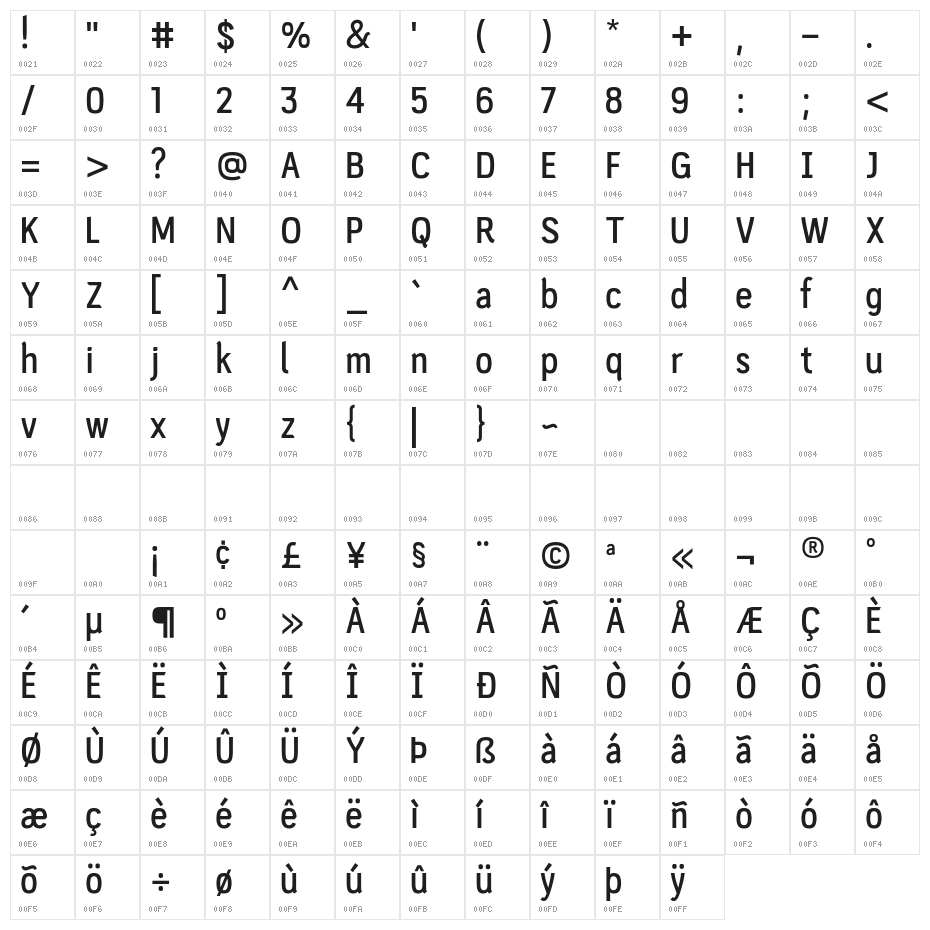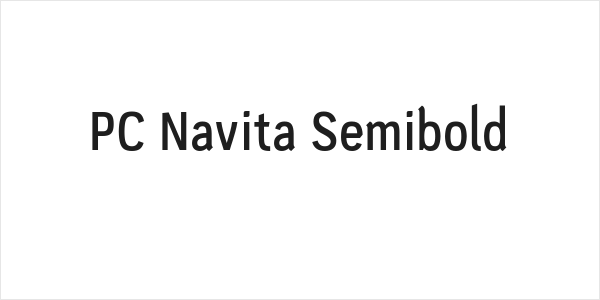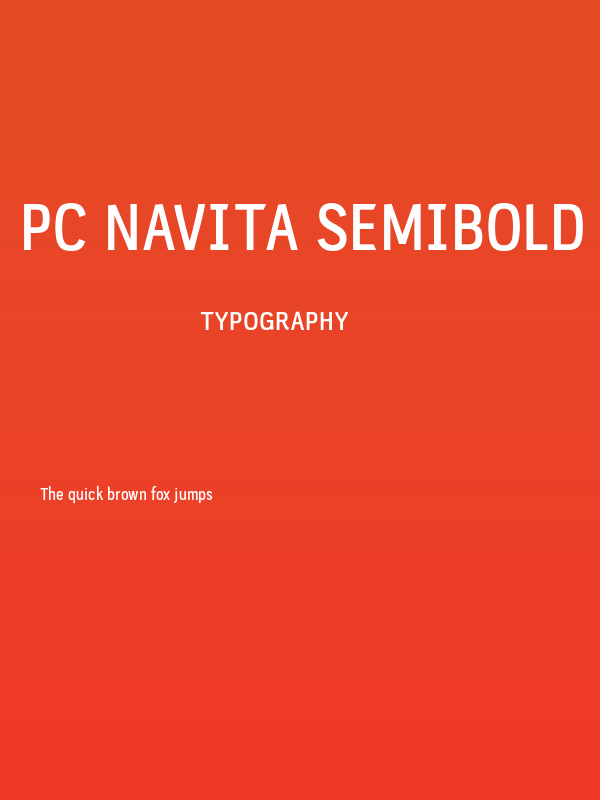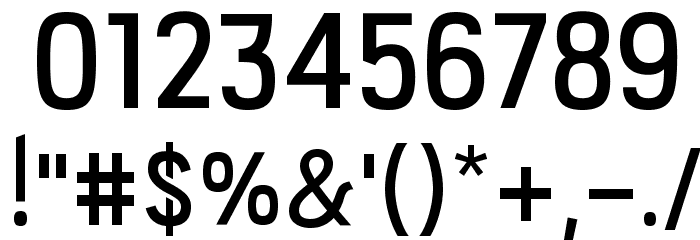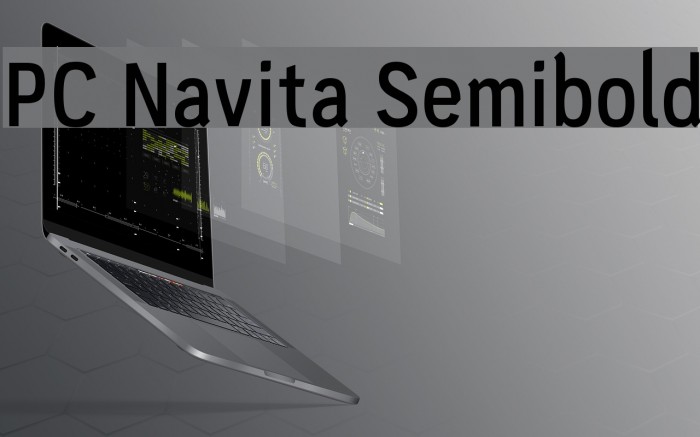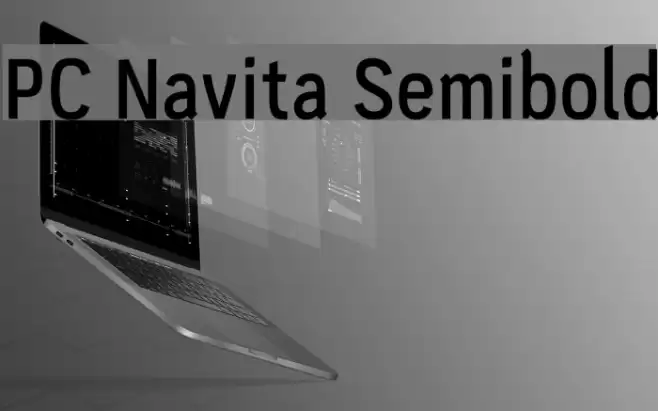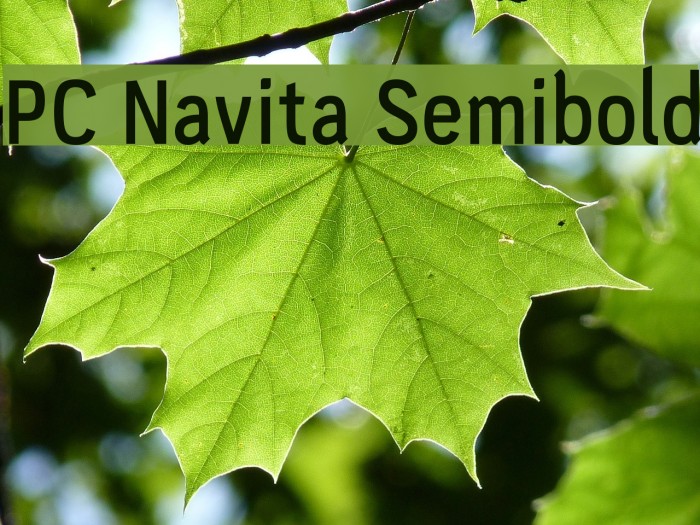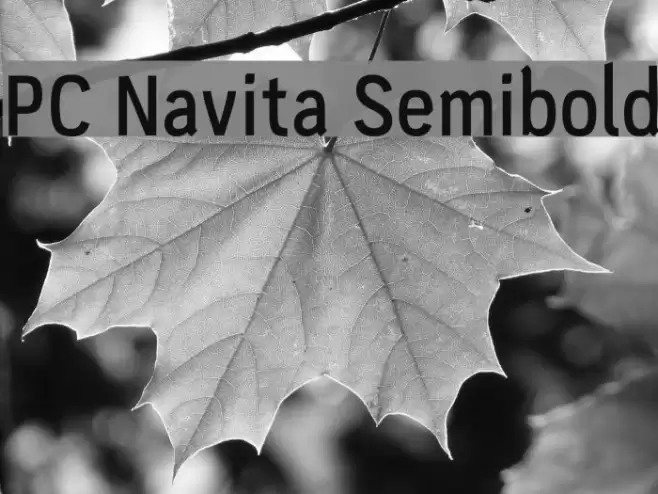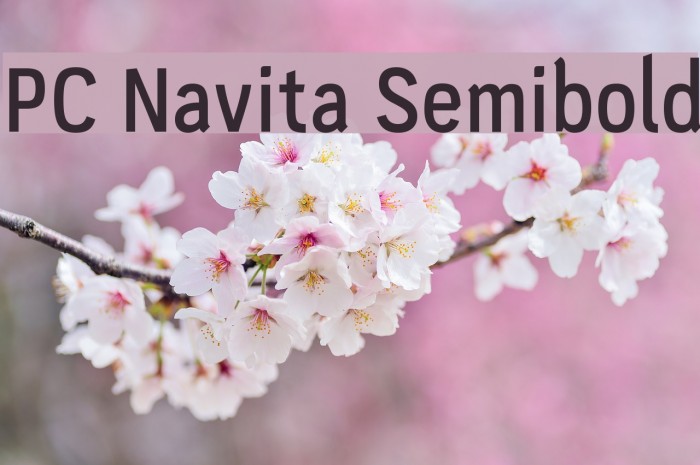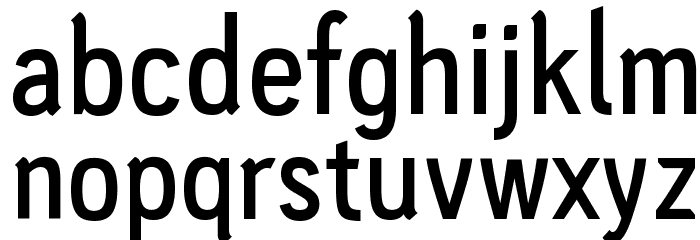
PC Navita Semibold Font
PC Navita Semibold Description
This font exhibits a clean and modern sans-serif style, characterized by its semi-bold weight that provides a strong presence without overwhelming the viewer. The characters are well-proportioned, with a consistent stroke width that ensures readability across various sizes. The uppercase and lowercase letters maintain a uniform appearance, while the numerals are clear and distinct. Special characters are included, offering versatility for different design needs. The overall design is straightforward, making it suitable for both digital and print media.
| Use Case | Headlines, Body text, Logos |
| Proposed Projects | Ideal for branding projects, website headers, editorial design, and advertising materials. |